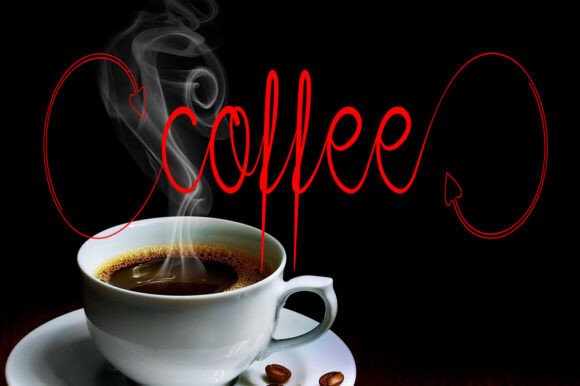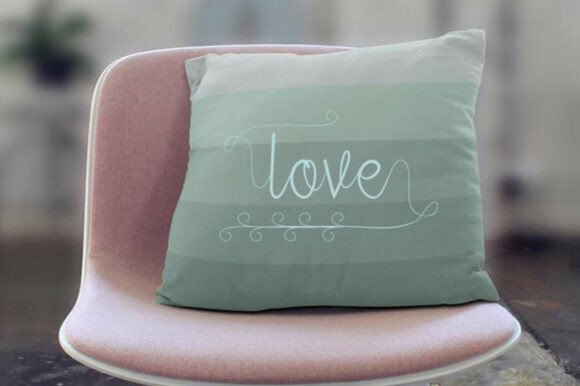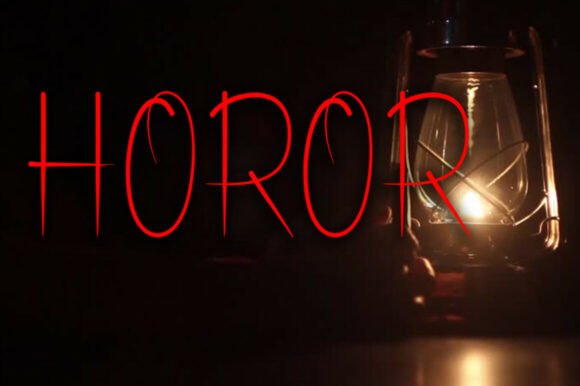
Introduction to Hallo Kitty Font
Have you ever found yourself stuck in a creative project, searching for the perfect font to bring your vision to life? That’s when you know you’ve stumbled upon something special. For designers, discovering a high-quality font can be the difference between a mediocre design and a masterpiece. And that’s exactly what we’re excited to introduce you to: the enchanting Hallo Kitty Font.
This adorable font boasts an impressive 608 glyphs, making it the perfect design resource for any creative project. With its transparent background and wide range of Open Type features, Hallo Kitty Font is a treasure trove of possibilities. Whether you’re a seasoned designer or just starting out, this font is sure to inspire your next big project. And the best part? You can access all its features with a free download, making it an essential addition to any designer’s toolkit.
Key Features of Hallo Kitty Font
- Unique and playful design inspired by Sanrio’s beloved character, perfect for creative projects and designs.
- High-quality font with transparent background, ideal for use on images, videos, and other multimedia content.
- Designed with a modern and cute aesthetic, Hallo Kitty Font is perfect for adding a touch of whimsy to your designs.
- Perfect for use in digital designs, including social media graphics, blog posts, and website content, as well as traditional print materials like posters and flyers.
Honest Review: Hallo Kitty Font
As a designer, I’m always on the lookout for unique and high-quality design resources to enhance my creative projects. Recently, I stumbled upon the Hallo Kitty Font, and I was excited to give it a try.
Here’s what works well: ✨ The font is incredibly cute and playful, making it perfect for kids’ projects, merchandise, or any design that needs a touch of whimsy. The transparent background feature is also a plus, allowing for seamless integration with other design elements.
- Perfect for kids’ projects or merchandise
However, there are some limitations: ⚠️ The font may not be suitable for professional or formal designs, as it can come across as too playful or childish. Additionally, the font’s size and spacing may require some adjustments to ensure proper readability.
Overall, I think the Hallo Kitty Font is a great addition to any designer’s toolkit, especially for creative projects that require a touch of fun and personality.
Design Tips and Tricks
To get the most out of the Hallo Kitty Font, use it with a transparent background to create a high-quality design. This will allow the font to stand out and add a touch of whimsy to your creative project.
The Hallo Kitty Font is perfect for various creative projects, including:
- Designing greeting cards and invitations.
- Creating social media graphics and posts.
- Developing branding and logos.